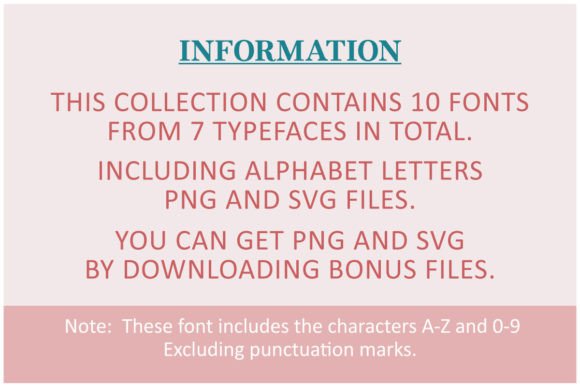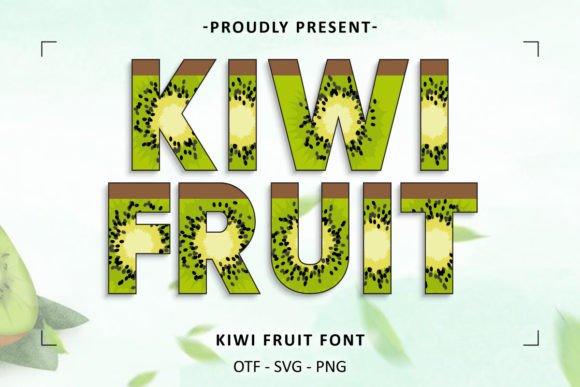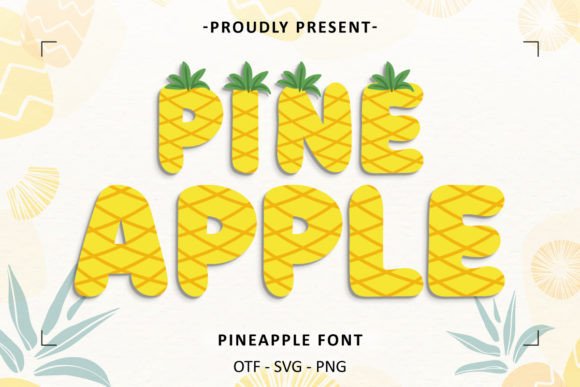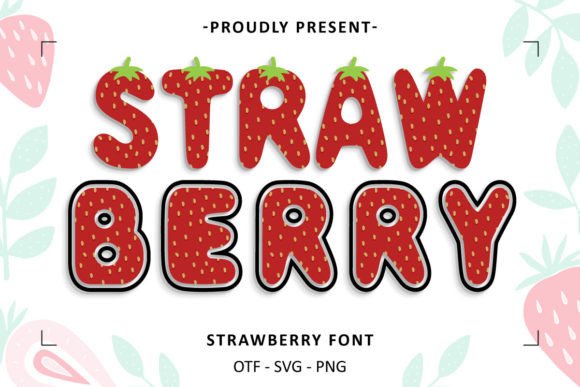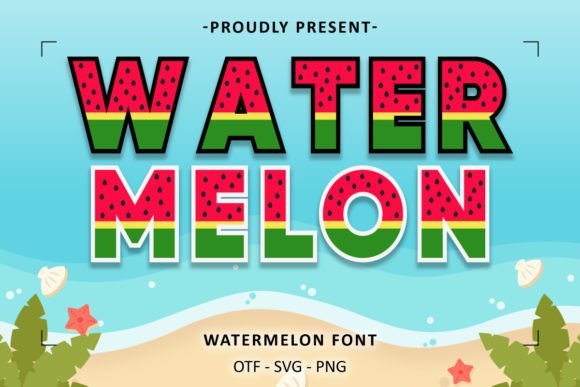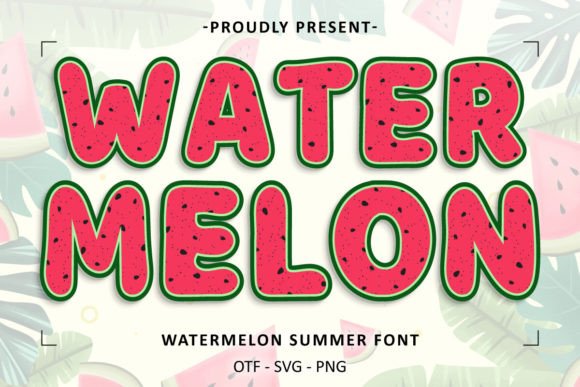
Fruit Collection Font
This Fruit Font Collection contains 10 fonts from 7 typefaces, beautifully designed and fun! In this bundle, you’ll find a unique combination of various types of fruit to create the perfect lettering.